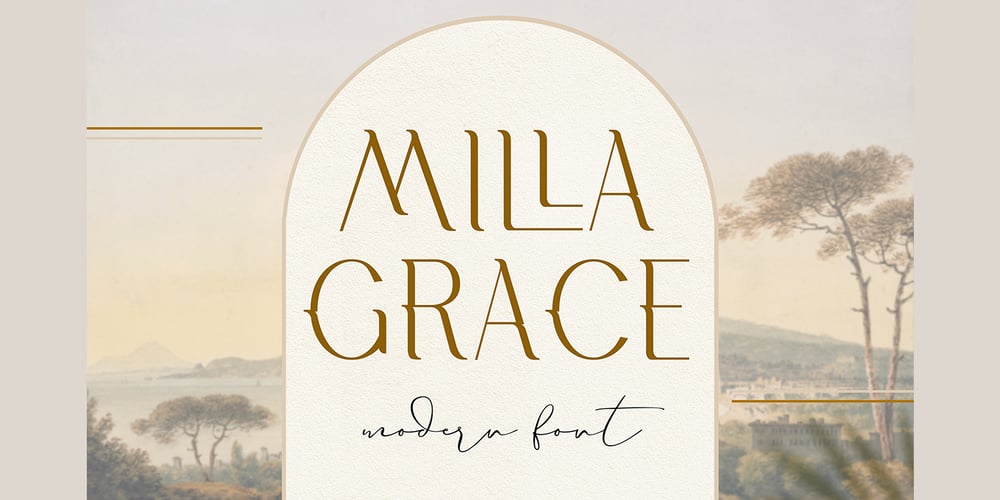
Milla Grace Font Family was designed by Elena Joland and published by LABFcreations. Milla Grace contains 1 styles and family package options. Milla Grace is a modern & classic font. This font is ideal for creating logos and branding. With original ligatures.It works perfect for creating sites, logos, striking editorials, invitations, graphic quotes, and more.Uppercase Characters & Discretionary Ligatures.Multilingual support for various languages. For presentation image, pairing script font: Carphe | Modern Luxury Duo fontFollow me by Instagram: @labfcreationsMade in France with LOVE.© LABFcreations